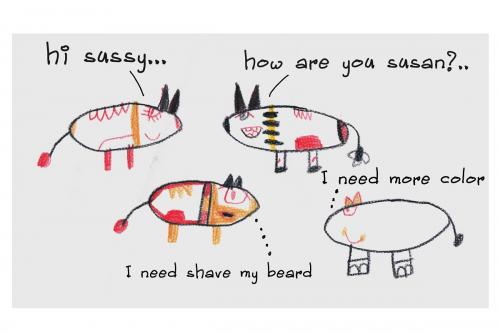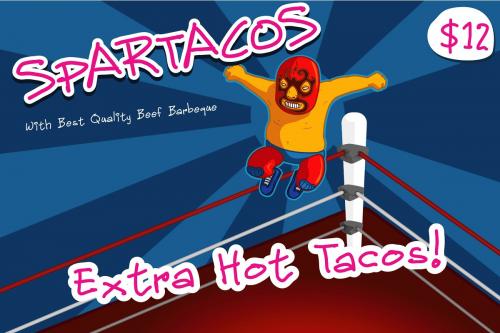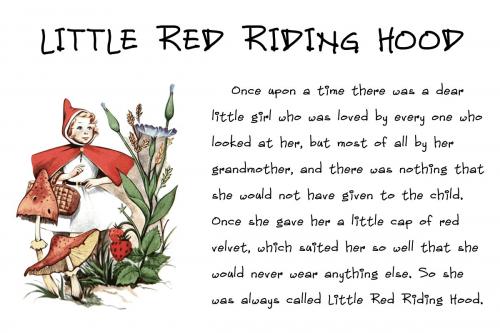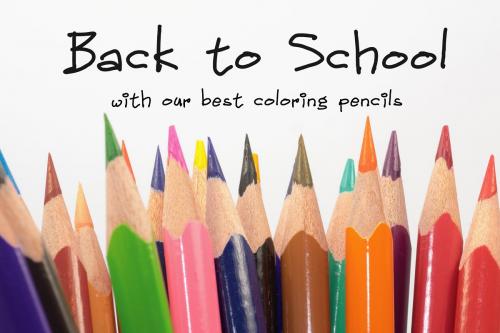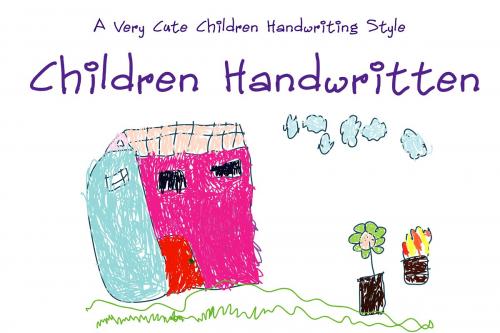
Introducing cute and playful kid handwritten font! Children Handwritten font nice for add children touch in your design.
This font contain 300 glyphs, with complete punctuation, and supported to Latin, Eastern Europe, Baltic and Turkish characters.